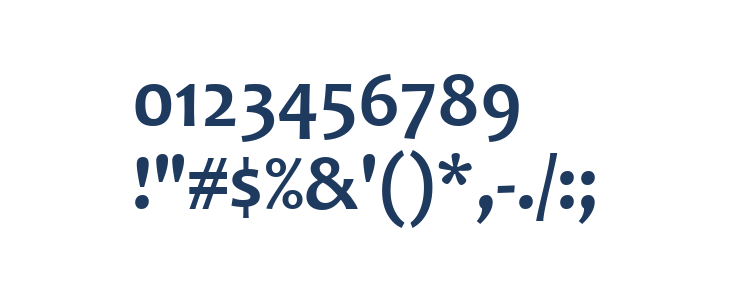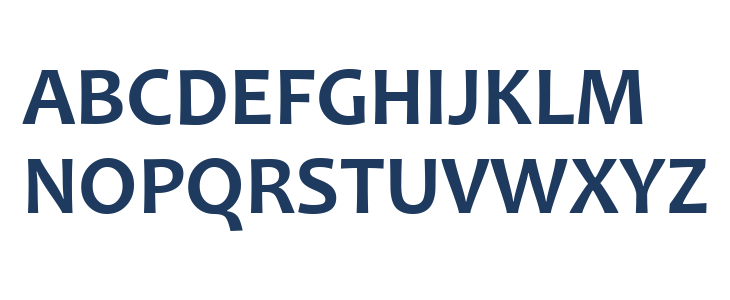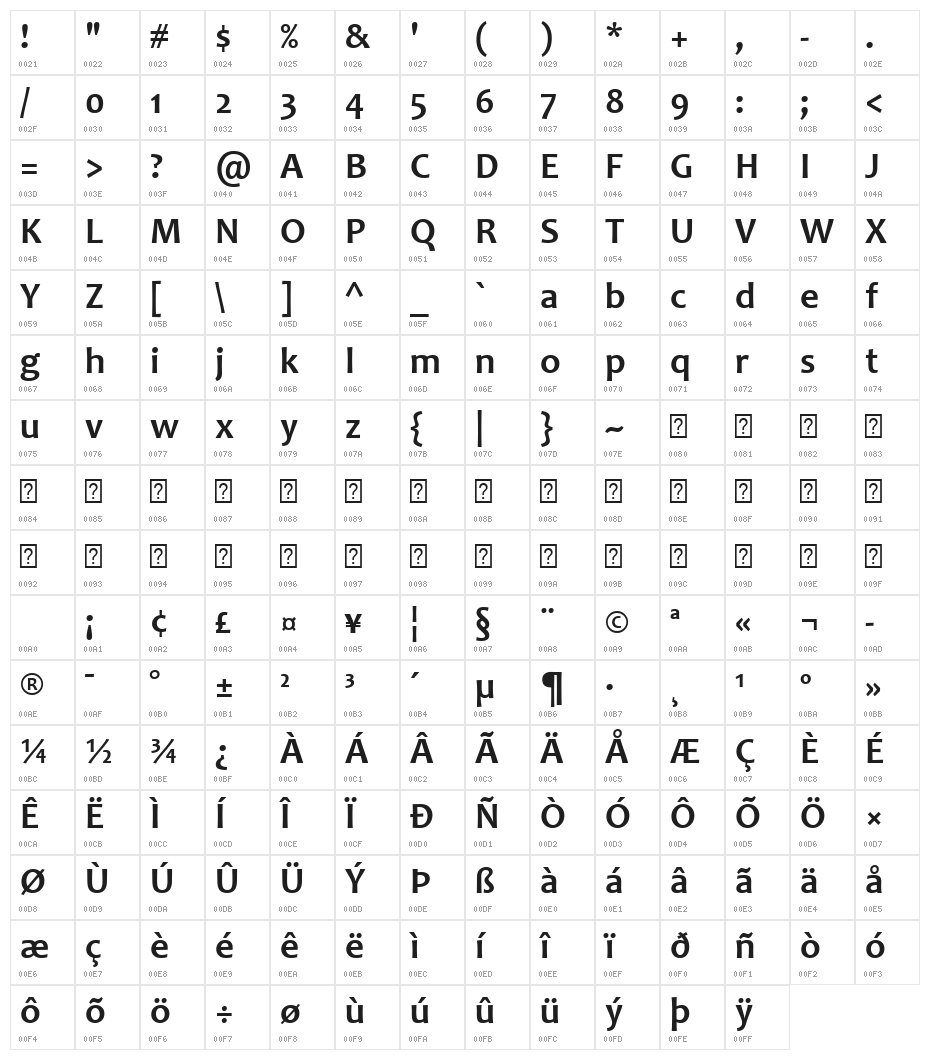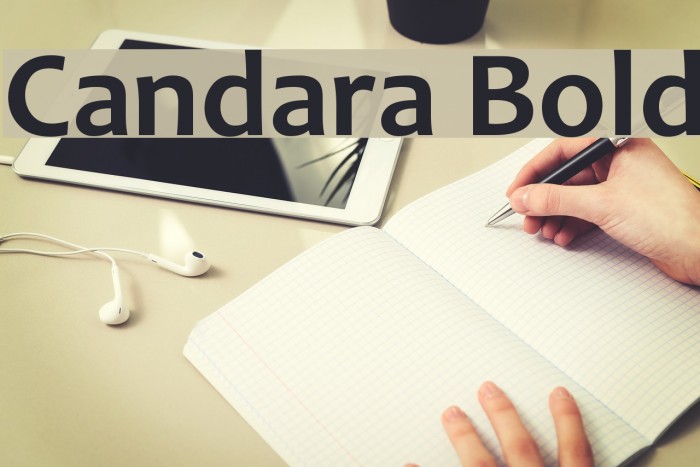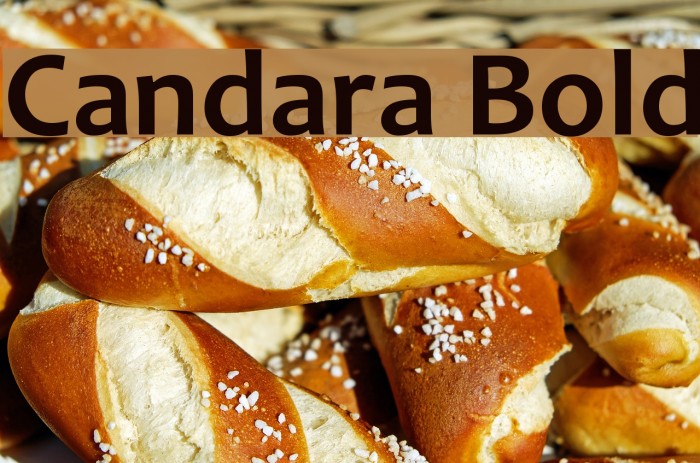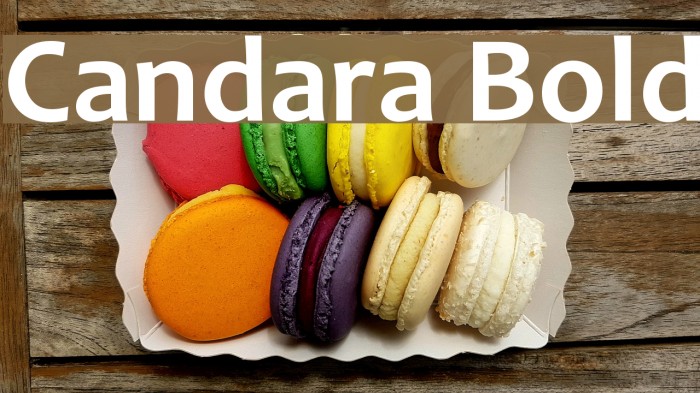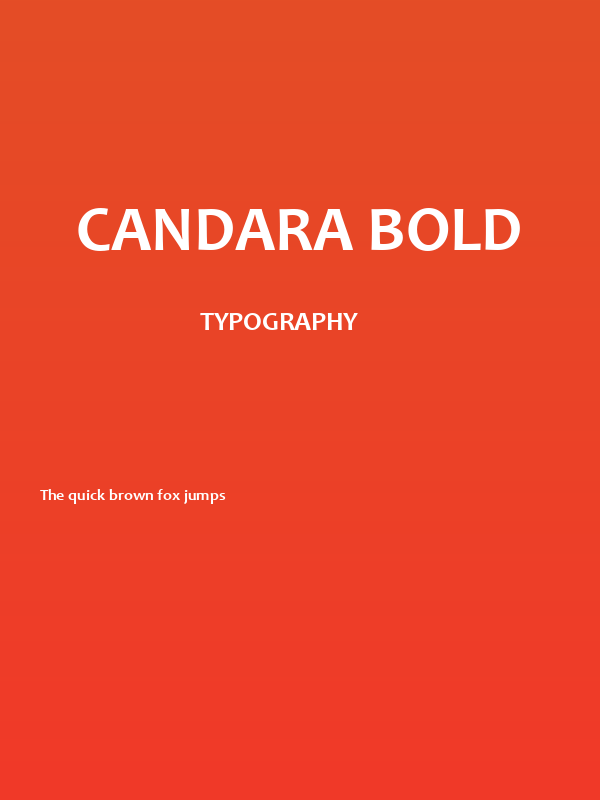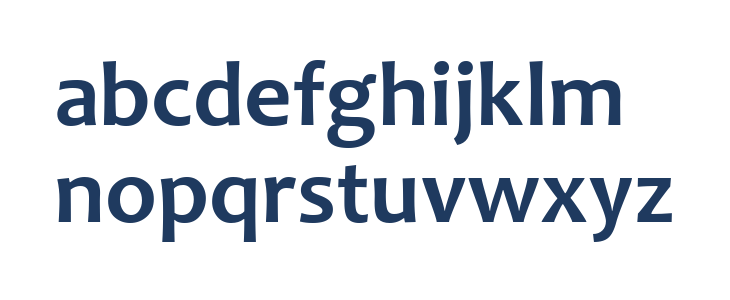
Candara Bold Font
Candara Bold Description
This font is a modern sans-serif typeface characterized by its clean and smooth lines, offering a contemporary and approachable look. The letters are well-proportioned with a slight curvature that adds a touch of friendliness without sacrificing professionalism. The bold weight enhances its readability and impact, making it suitable for various design contexts. The rounded terminals and open counters contribute to its legibility, while the consistent stroke width provides a harmonious and balanced appearance. This font is versatile, fitting well in both digital and print media, and is ideal for creating a modern and inviting aesthetic.
| Proposed Projects | Ideal for branding, advertising, web design, and editorial layouts where a modern and friendly tone is desired. |